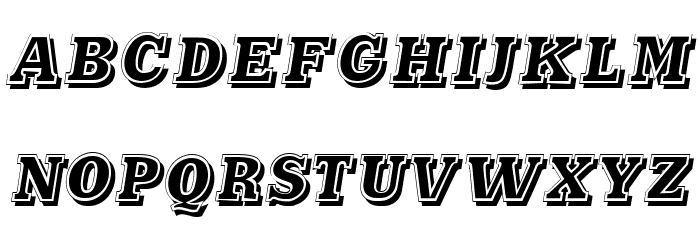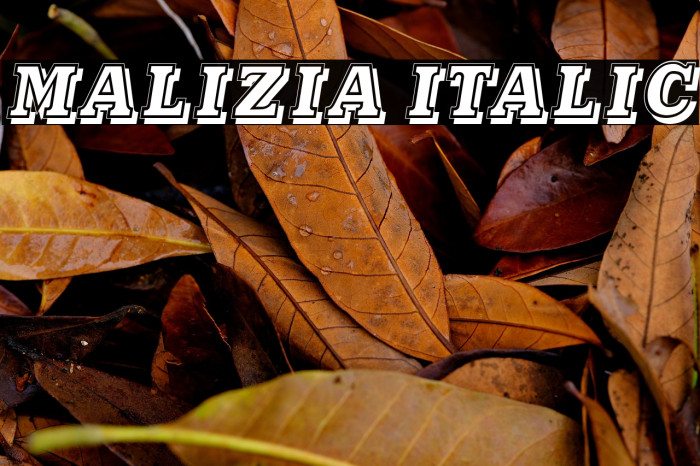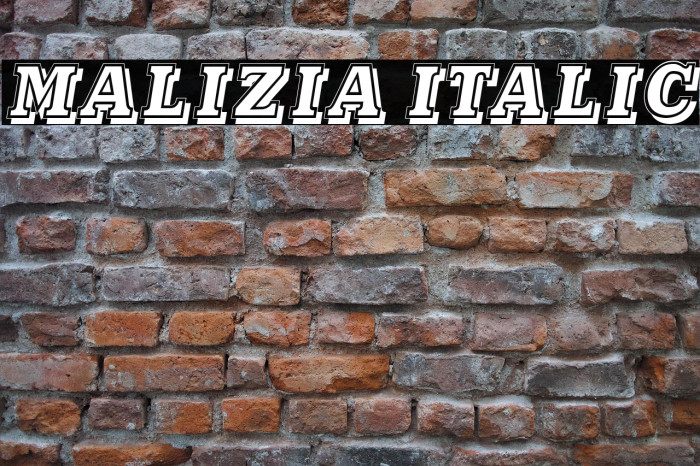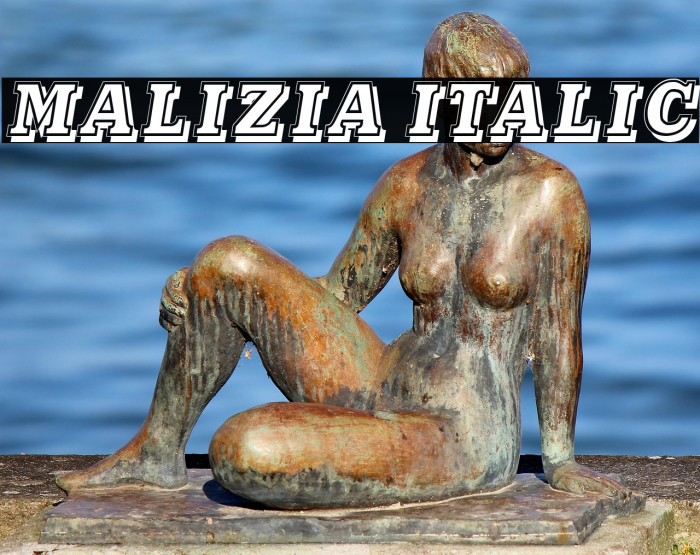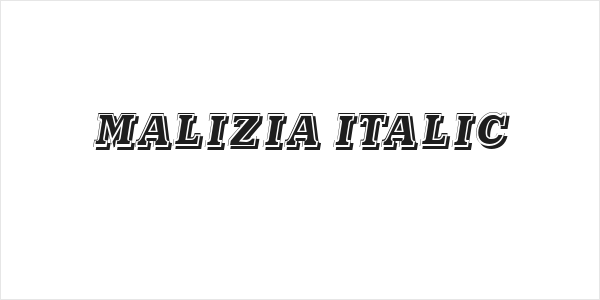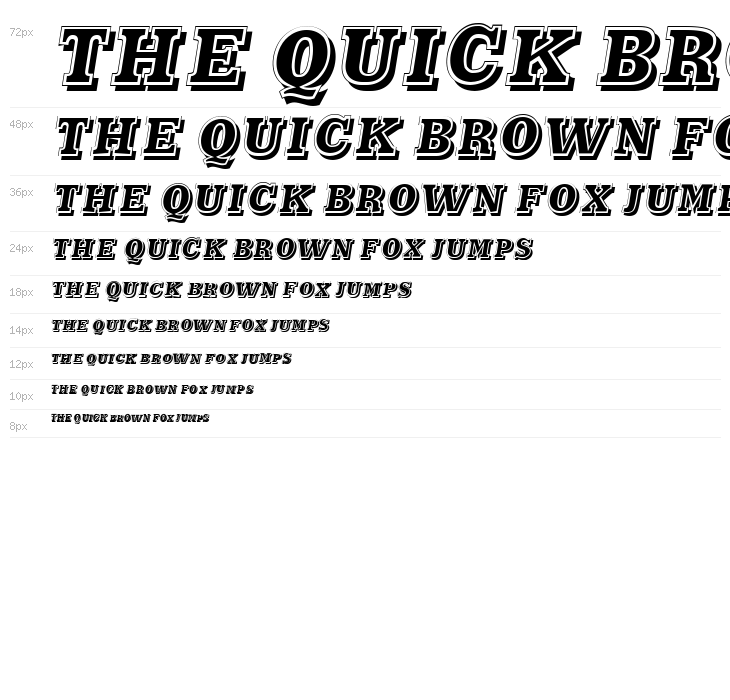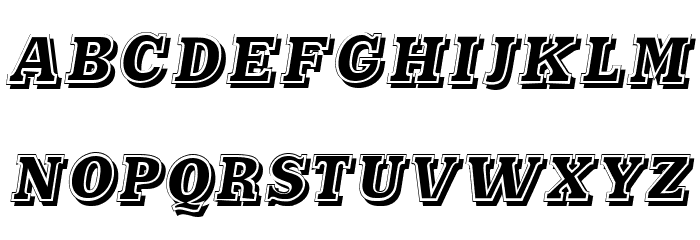
Malizia Italic Font
Malizia Italic Description
This font features a bold and dynamic style with a distinct italic slant, giving it a sense of motion and energy. The characters are outlined with a thick black border, enhancing their visibility and impact. The inner strokes are white, creating a striking contrast that makes each letter stand out. The serifs are pronounced, adding a touch of classic elegance to the overall modern design. This font is ideal for making a statement, whether used in headlines, posters, or branding materials. The spacing between characters is tight, which contributes to its cohesive and bold appearance.
| Proposed Projects | Ideal for headlines, posters, branding, and any project requiring a bold, impactful typeface. |